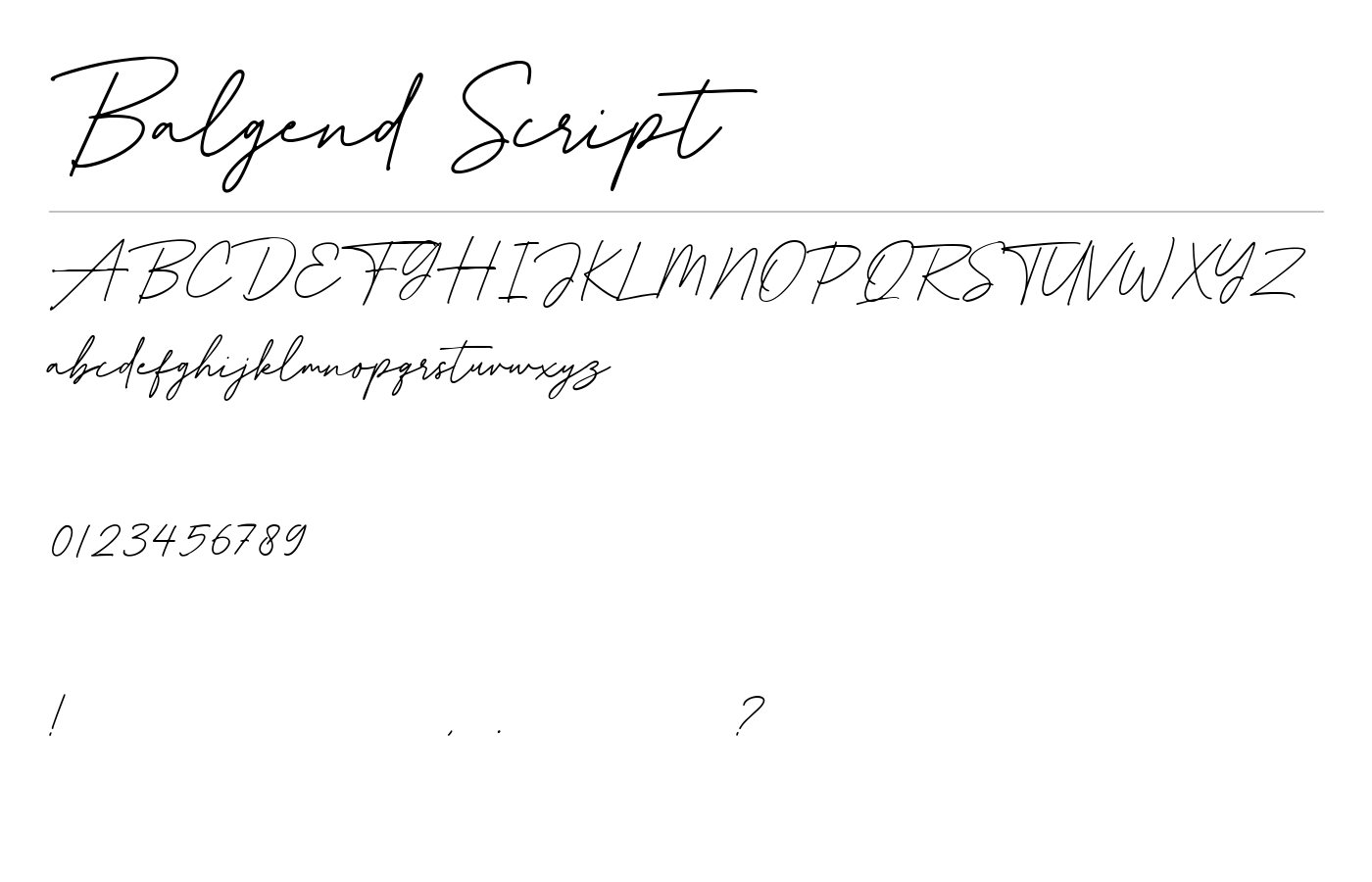
Balgend Script is an elegant, lightweight handwritten font with a delicate, airy style that feels both modern and personal. Its thin strokes and fluid letterforms create a refined yet approachable look, ideal for branding, invitations, and editorial designs that want to convey sophistication and subtle charm. This font works best in headlines or accents where a graceful, handcrafted touch is desired.
Balgend Font
About Balgend Font